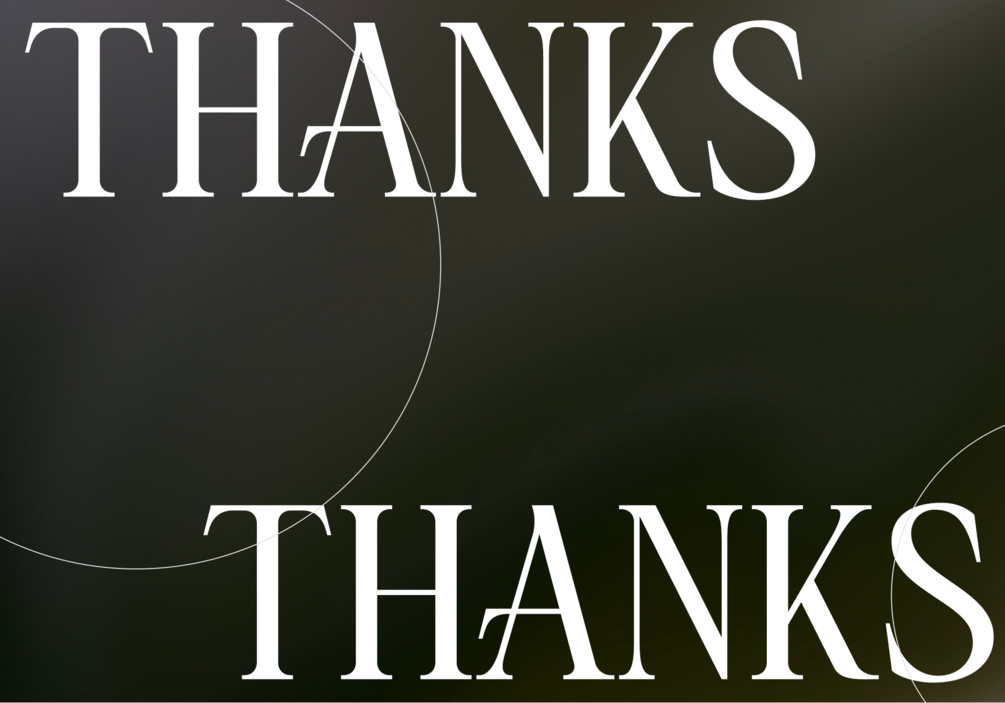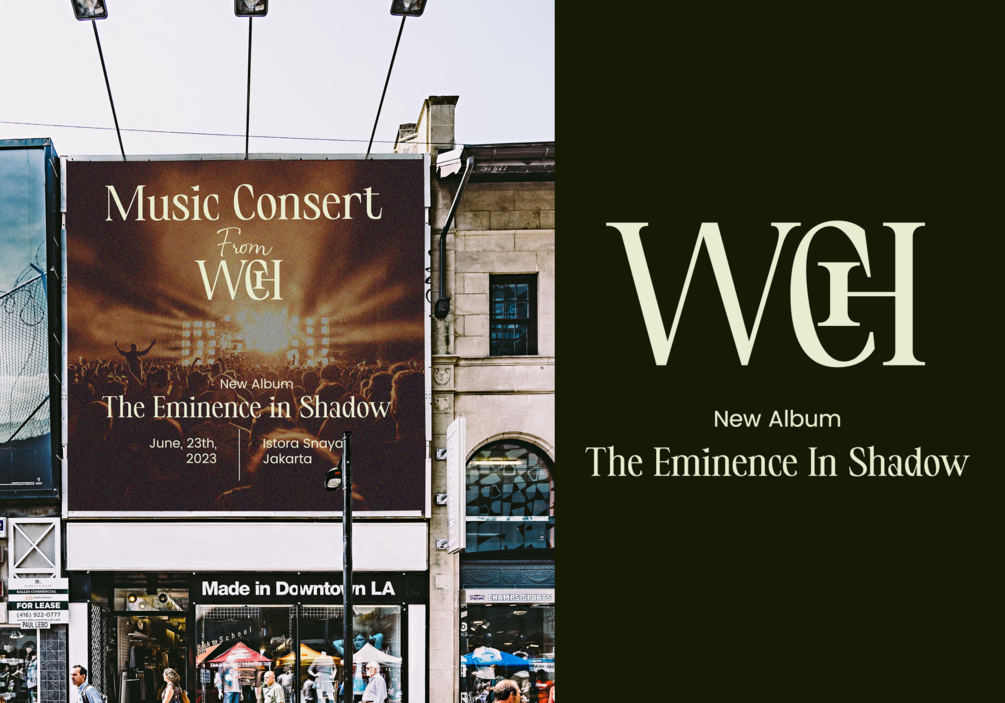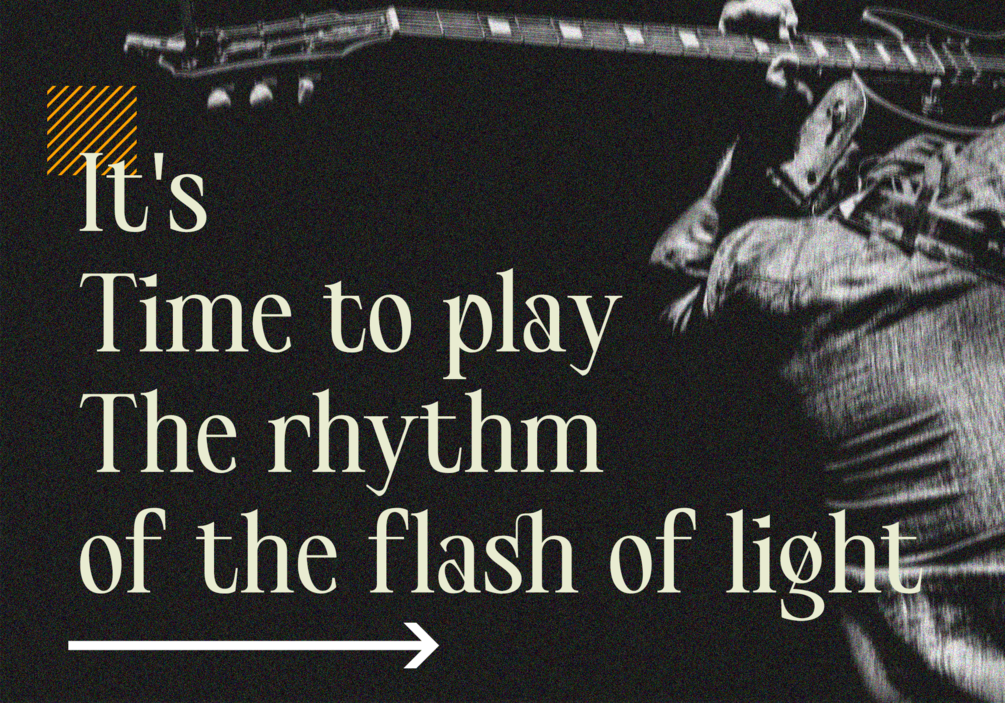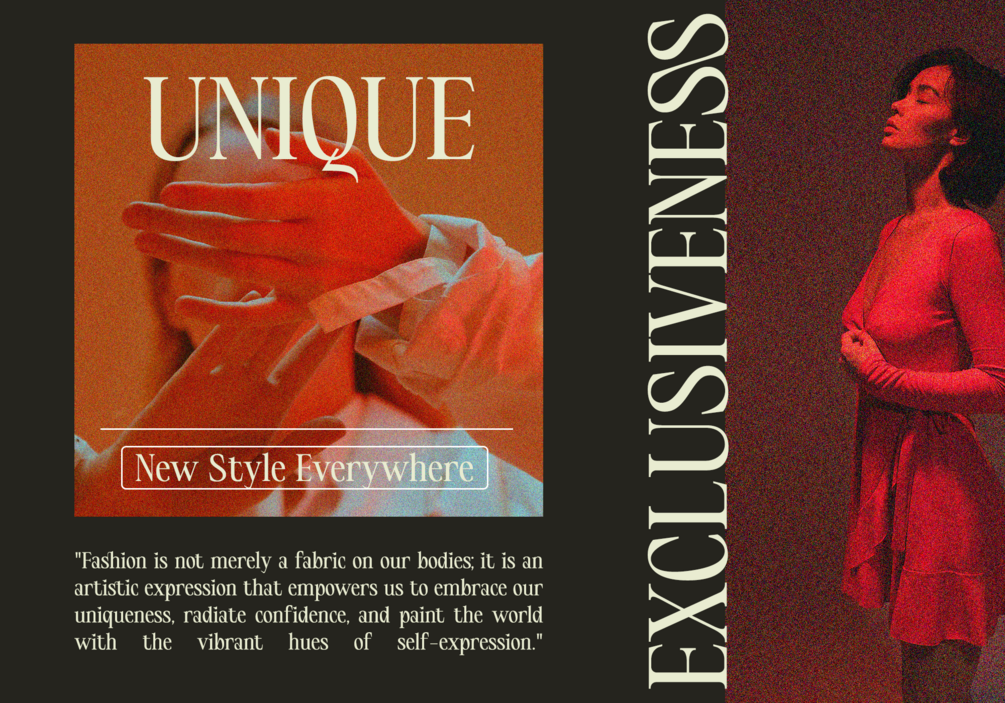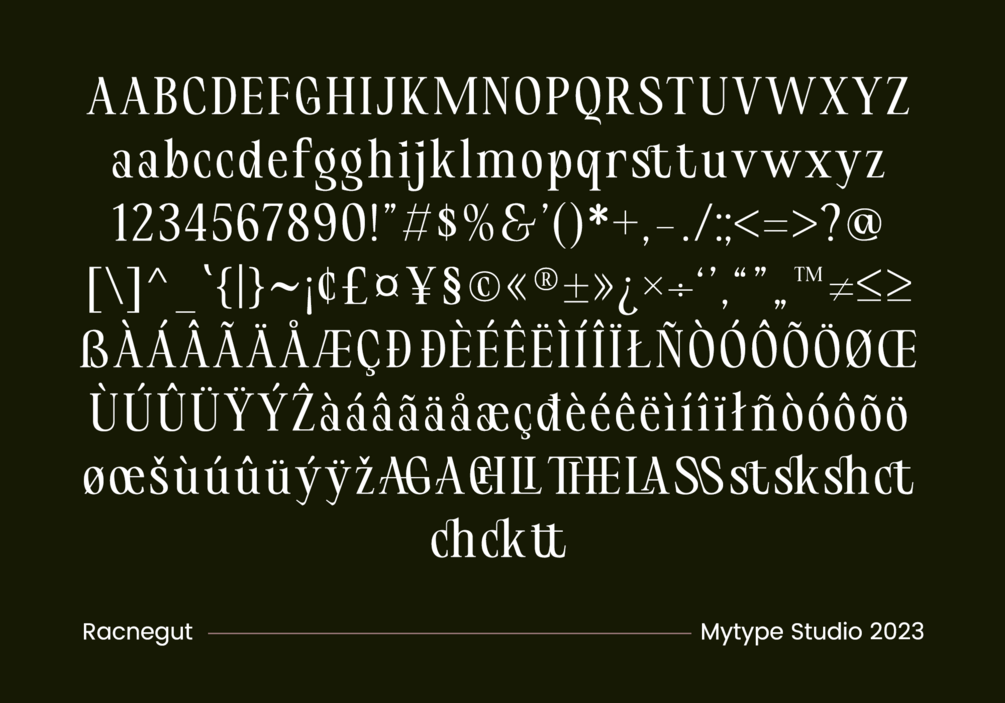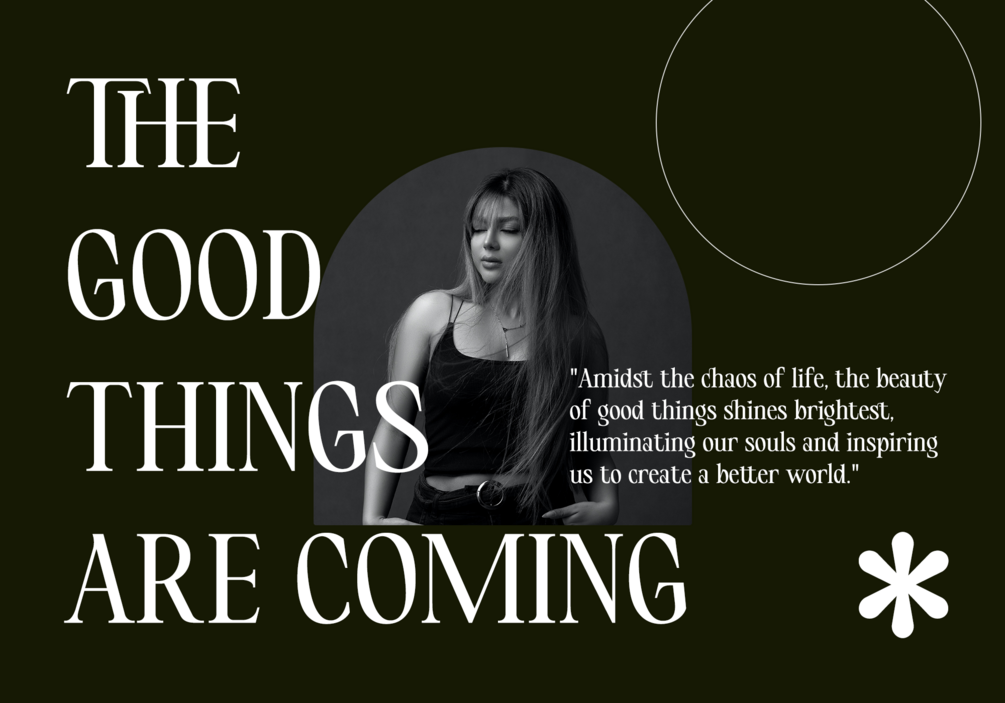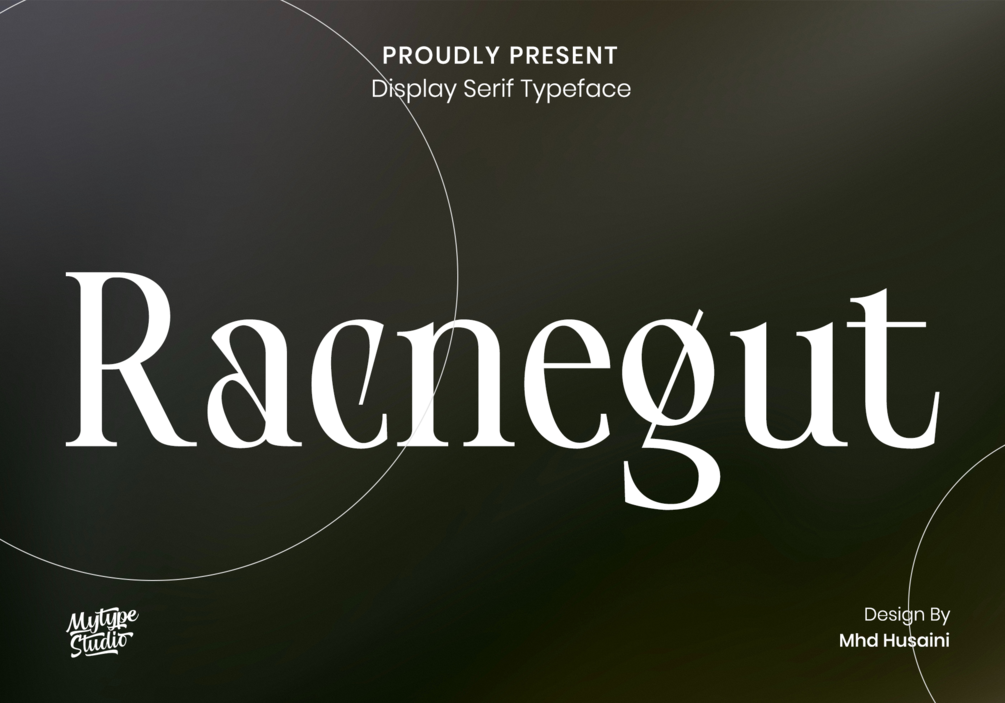
Racnegut - Display Serif
Discover Racnegut: The Bold and Experimental Display Serif Font
Unleash Creativity and Elegance in Every Design
Introducing Racnegut, a groundbreaking display serif font that combines classic elegance with modern experimental design. Whether you're crafting headlines, posters, or any text that demands attention, Racnegut delivers a distinctive edge to your typography.
Key Features:
• OpenType Versatility: Racnegut is equipped with a wide array of OpenType features, providing you with the flexibility to enhance your designs. From contextual alternates to stylistic sets, the possibilities are endless.
• Alternate Characters: Stand out from the crowd with Racnegut’s extensive set of alternate characters. These alternatives allow you to inject variety and personality into your text, ensuring each project is uniquely captivating.
• Intricate Ligatures: Our font includes meticulously designed ligatures that create seamless connections between letters. This feature adds a sophisticated, handcrafted touch to your typography, making your text flow beautifully.
Why Choose Racnegut?
Bold and Unique Design: Racnegut is not just another serif font. Its experimental character shapes and innovative features set it apart, making it ideal for designers who want to push the boundaries and make a statement.
Perfect for Display Text: Designed specifically for display use, Racnegut excels in large formats. Its intricate details and bold structure make it perfect for headlines, magazine covers, posters, and more.
Professional Quality: With its robust set of OpenType features and carefully crafted ligatures, Racnegut offers professional-quality typography that enhances the visual appeal of your projects.
Applications:
• Headlines and Titles: Make a strong impression with headlines that captivate and engage your audience.
• Posters and Advertising: Create striking posters and advertisements that draw attention and convey your message powerfully.
• Branding and Logos: Develop a distinctive brand identity with a font that reflects innovation and sophistication.
• Editorial Design: Enhance the readability and visual appeal of magazines, brochures, and other editorial materials.
Transform Your Typography with Racnegut
Embrace the fusion of tradition and innovation with Racnegut. This font is more than just a typeface; it’s a tool for artistic expression and visual storytelling